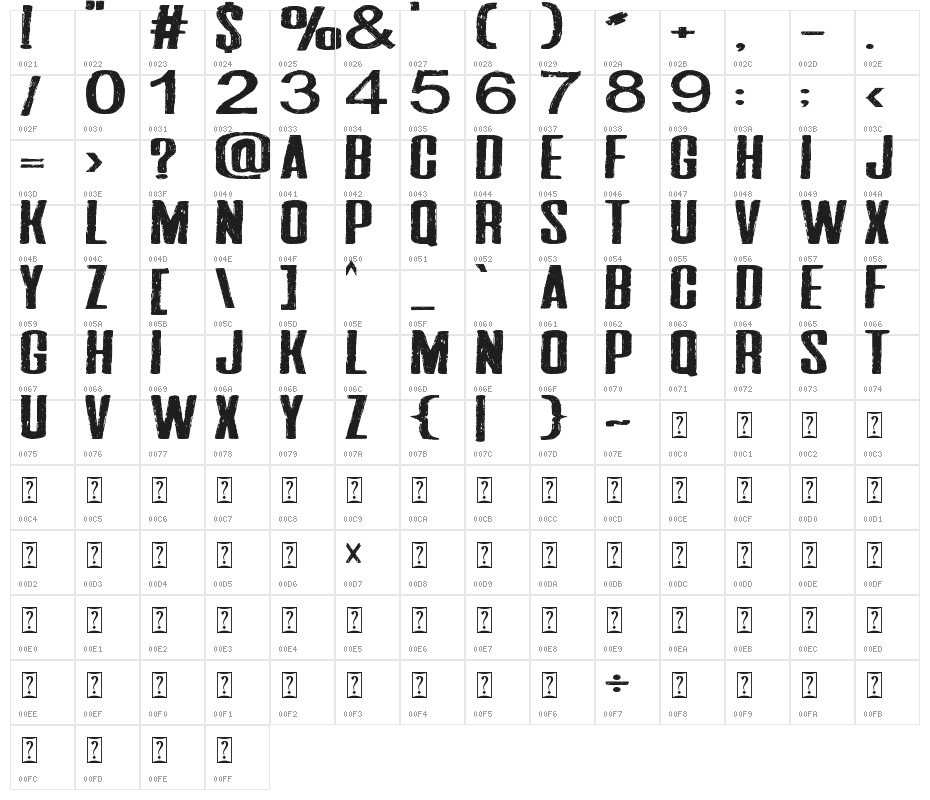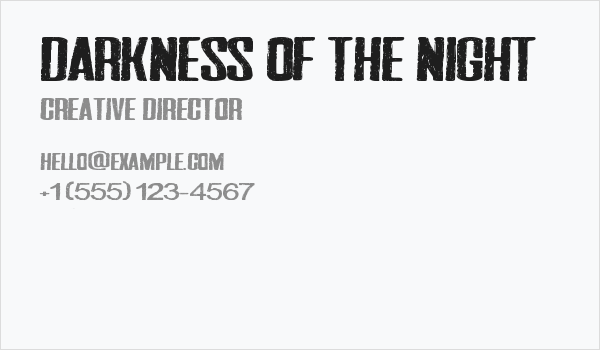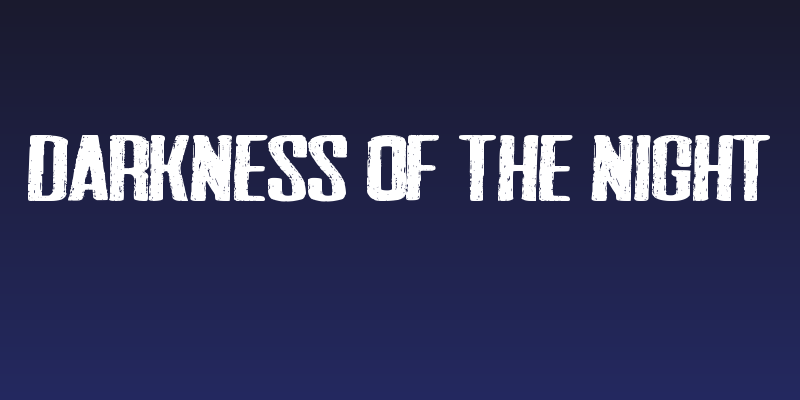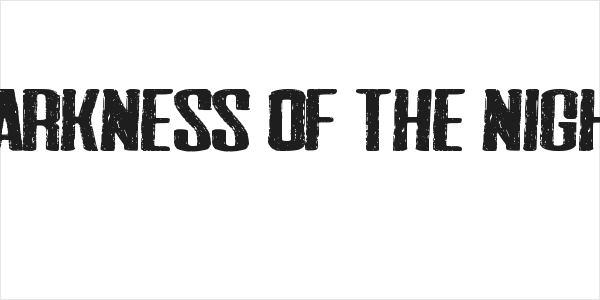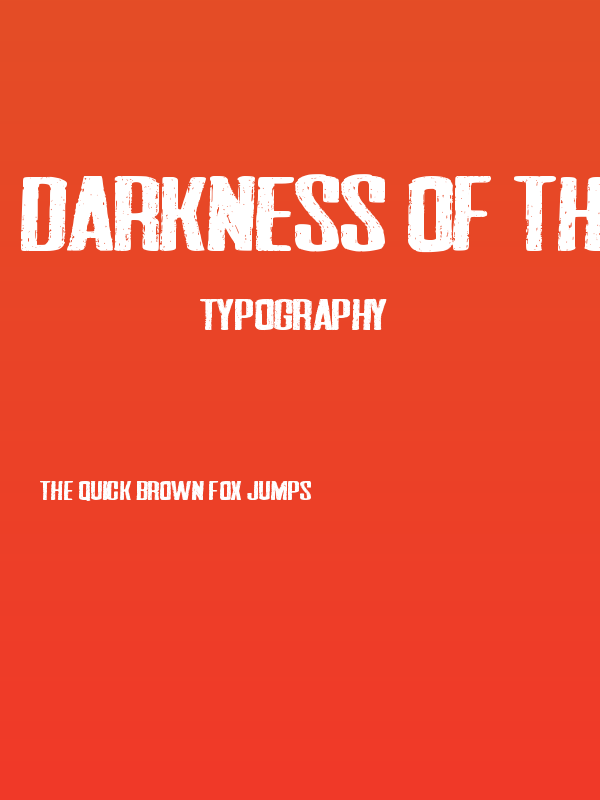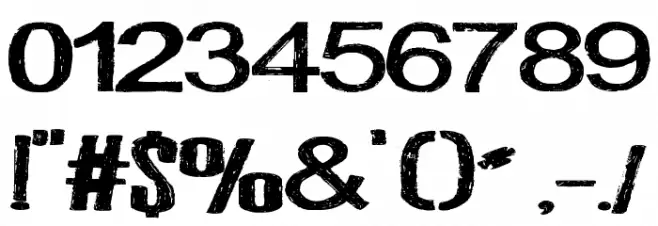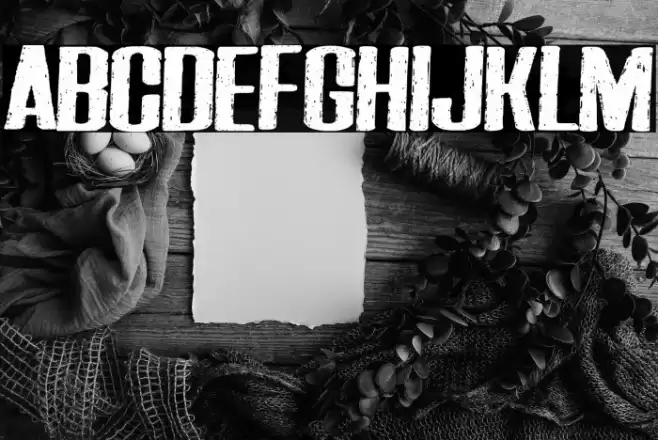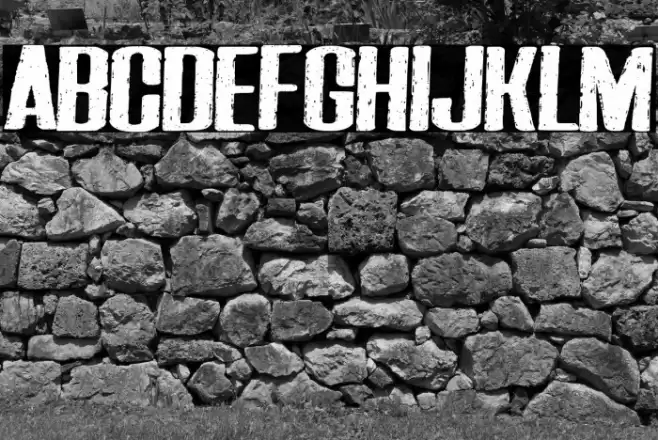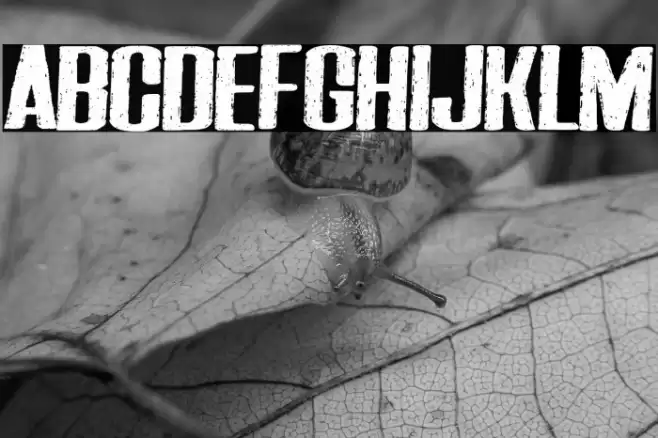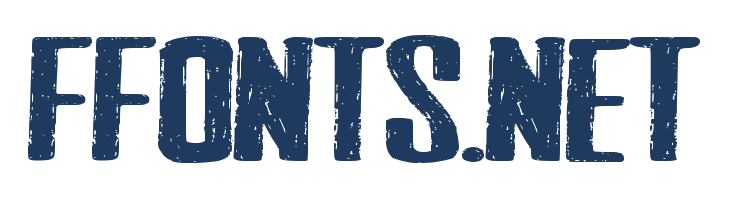
Darkness of the night Font
Darkness of the night Description
This font features a bold, distressed style with a textured appearance that gives it a rugged, vintage feel. The uppercase and lowercase letters maintain a consistent weight, while the numbers and special characters follow the same design ethos. The texture adds a sense of depth and character, making it ideal for projects that require a strong, impactful visual statement. The font's boldness and unique texture make it stand out, while the consistent spacing ensures readability. Its design is reminiscent of old printing techniques, adding a nostalgic touch to modern applications.
| Overall Style | Vintage |
| Proposed Projects | Ideal for posters, album covers, branding, and any project needing a bold, vintage aesthetic. |